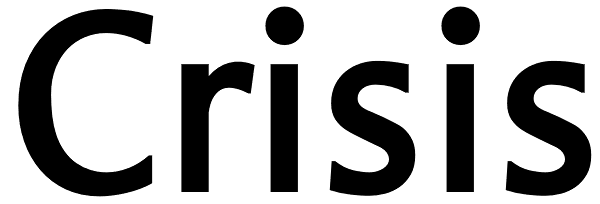
Crisis
Crisis is a child of the dictatorship of economics. Since time is money the time budget of its production has been rigidly limited. Crisis was designed and generated completely on one single day. The target was to make a useful font while investing...